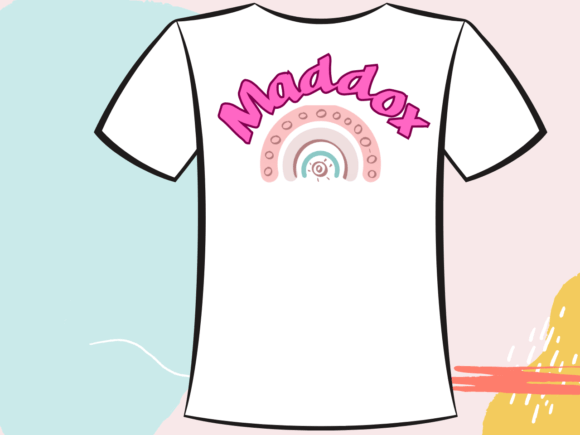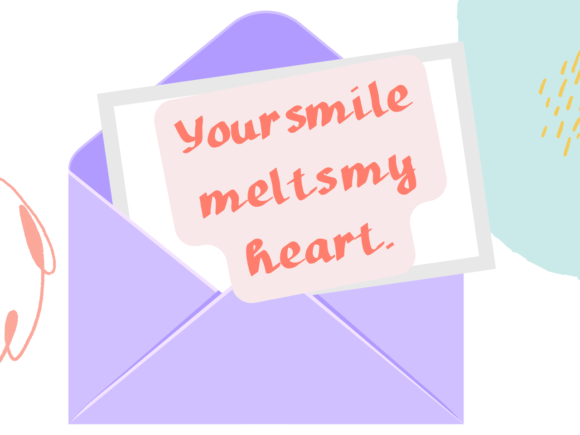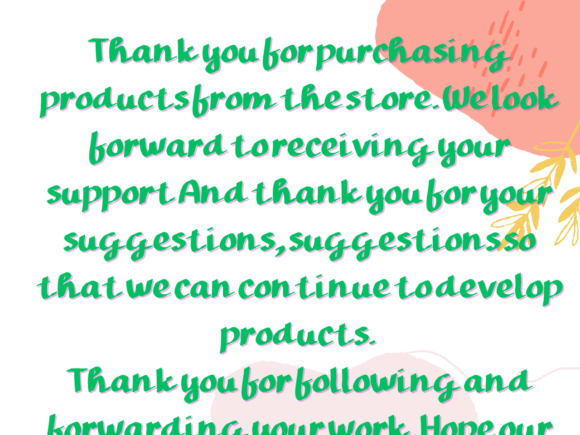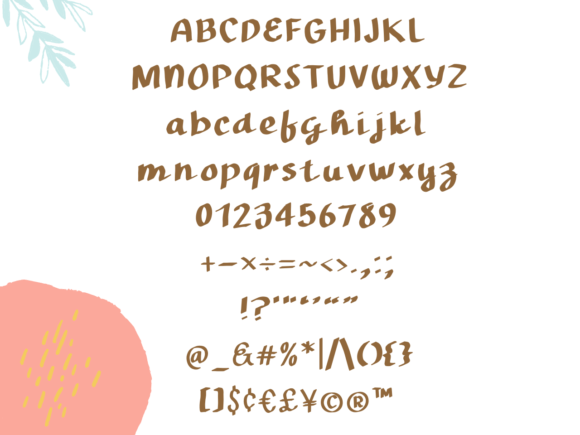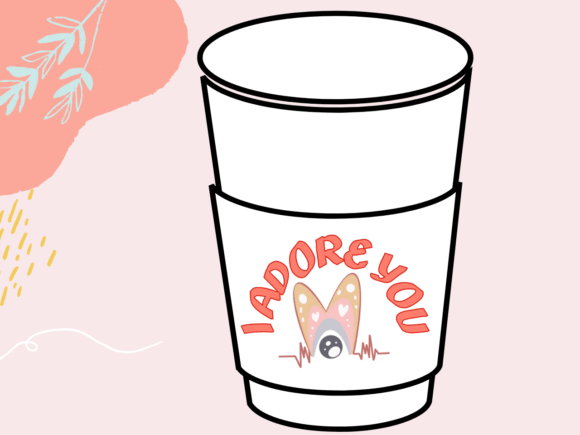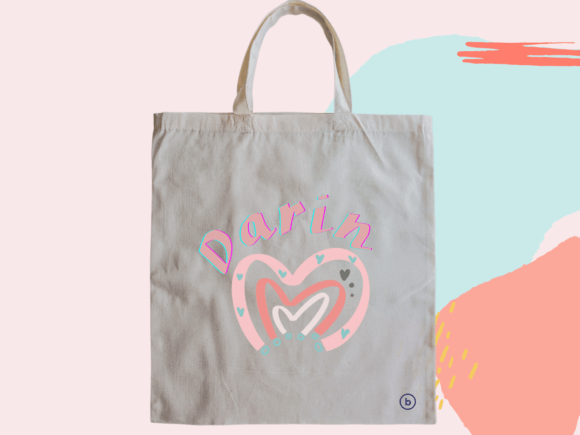
Introduction to Darin Font
Darin font has the concept of handwriting by applying different brushes.
The font design is unique and can be used to add prominence to your work, whether you are using it for lettering, designing greeting cards, wedding cards, and more With this font, your letters will have a distinct look that stands out.
Key Features of Darin Font
Why Choose Darin Font?
Darin Font offers exceptional quality and versatility, making it a valuable addition to your design toolkit. Whether you’re creating for personal projects or commercial use, Darin Font delivers professional results.